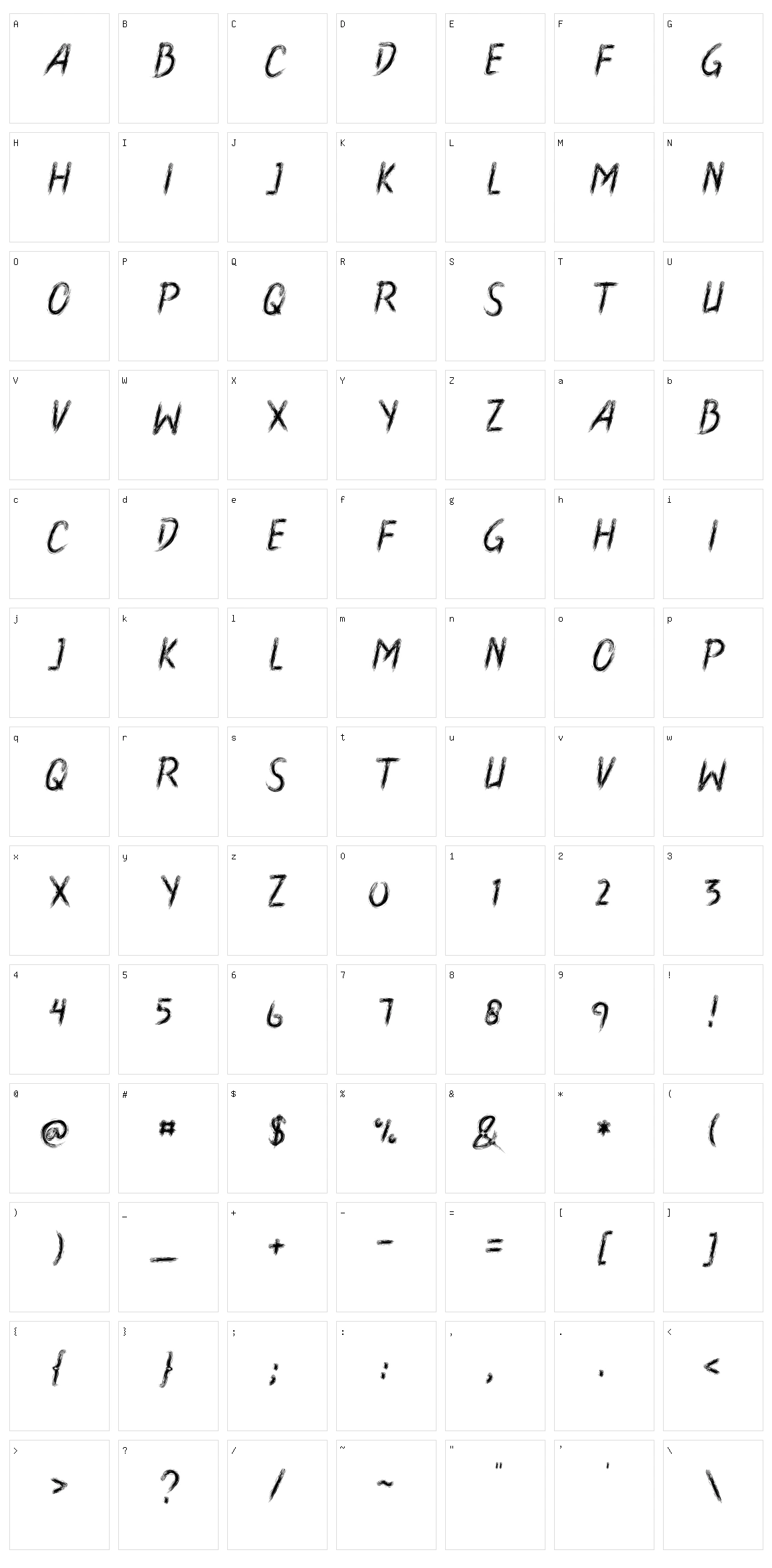
BOLDACE is strong hand drawn brush fonts made with natural touch, Included character
in all caps the best choice for all your design projects. Would be perfect for posters,
packaging, advertising, headlines, branding, signage and anything where you want that
urban look and feel.